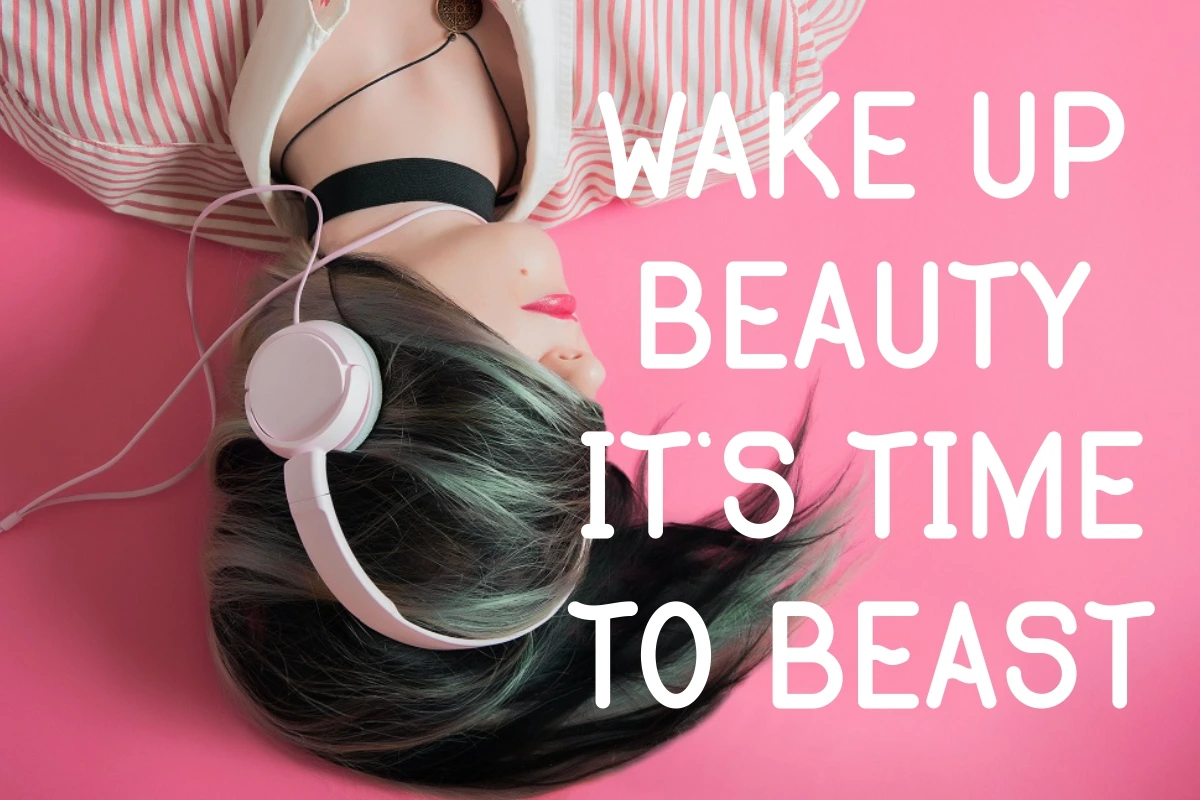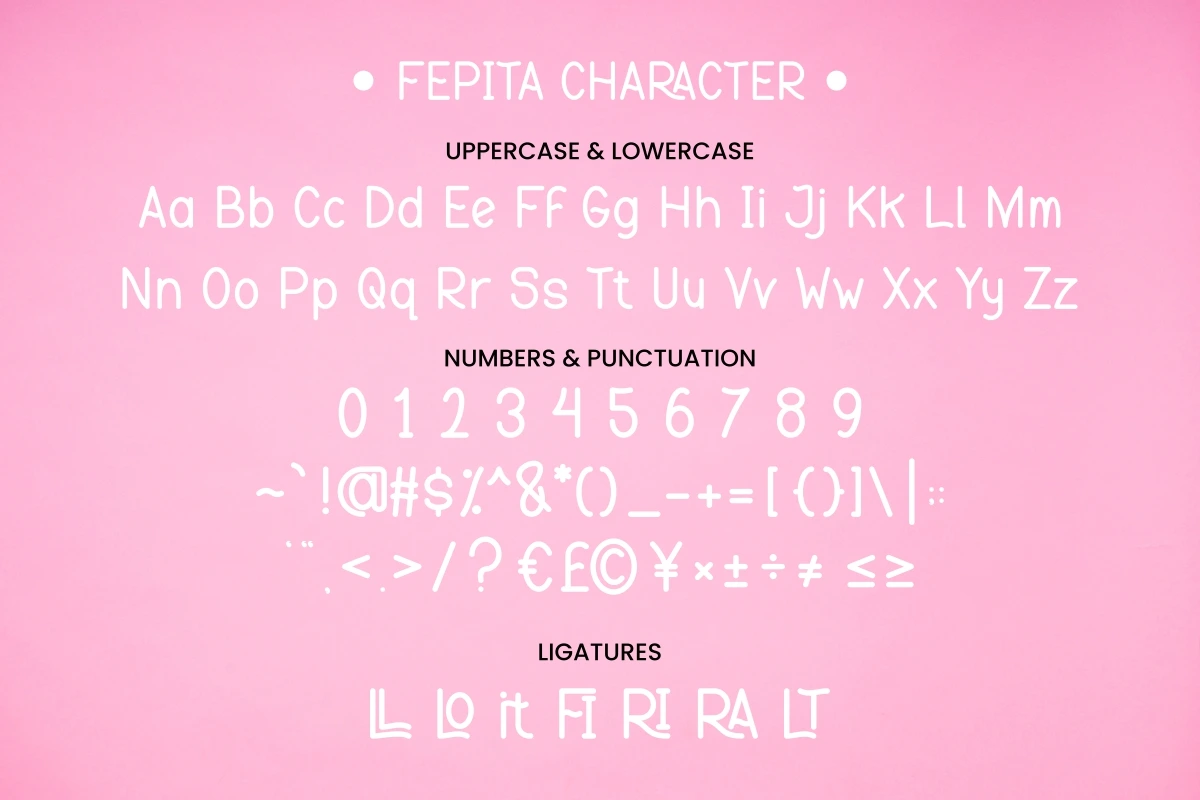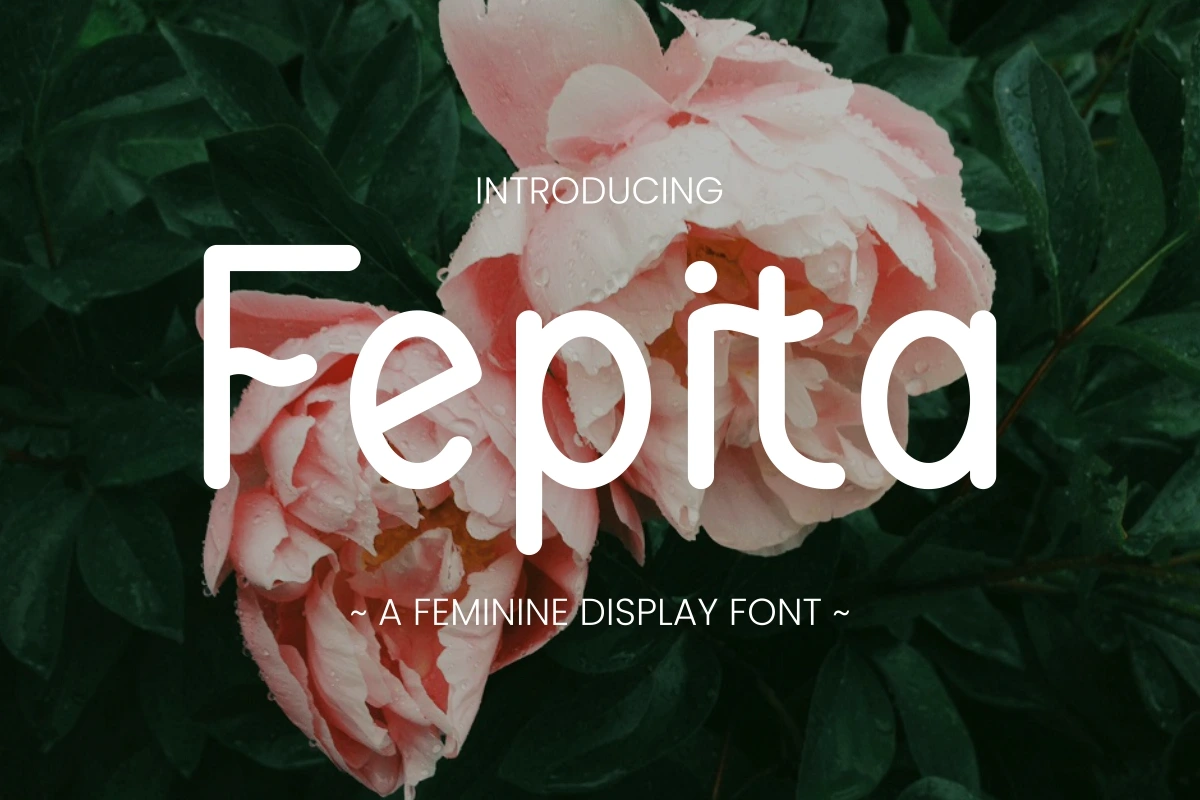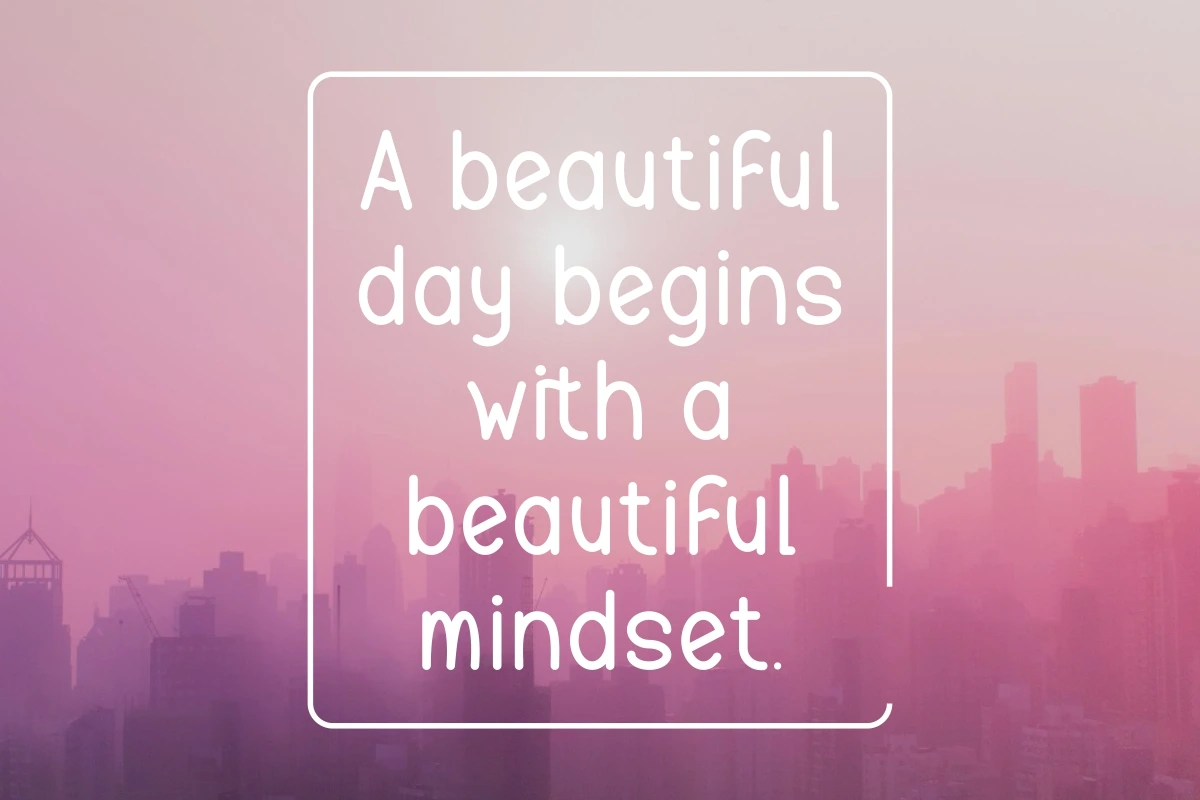
Fepita - Feminine Display Font
Fepita is a charming and delicate typeface that encapsulates both cuteness and femininity. With its adorable and soft design, this font brings a touch of elegance to any project. The playful curves and graceful strokes of each letter evoke a sense of warmth and beauty.